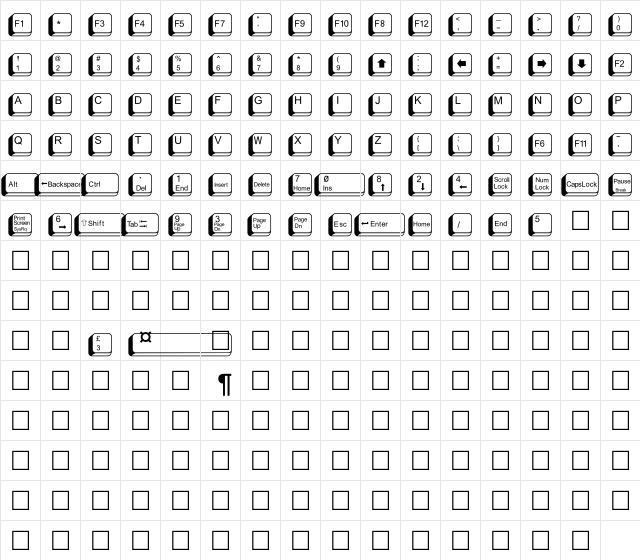
FIKey2 Normal Font Preview
FIKey2 Normal
Design Context for FIKey2 Typeface
FIKey2 offers clean, dependable letterforms without strong stylistic allegiance, making it a practical choice for designers who need flexibility.